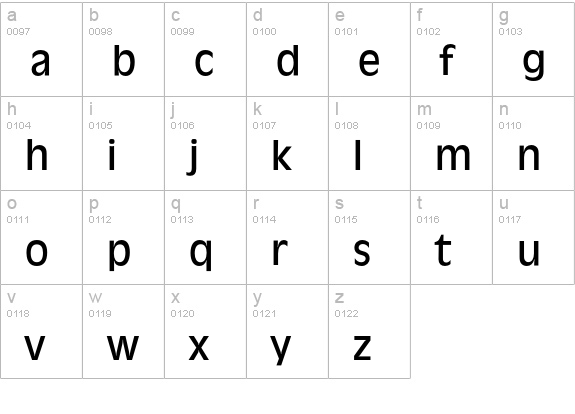
Ravenna-Medium Font Details
Ravenna-Medium is a balanced, medium-weight variant in the Ravenna typeface family \xE2\x80\x94 well suited to sub-headlines, navigation, and balanced editorial work.
Ravenna-Medium font is a stunning display typeface that effortlessly captivates with its elegance and sophistication. With its balanced letterforms, this font strikes the perfect harmony between strength and grace. It features medium weight strokes that exude a sense of stability and professionalism. This font is a true testament to meticulous craftsmanship, with every curve and contour meticulously designed to perfection. Each character is crafted with precision, ensuring legibility at any size, making it an ideal choice for both print and digital media. Ravenna-Medium font's versatility knows no bounds, making it suitable for a wide range of creative projects. Whether it's designing eye-catching logos, crafting stunning headlines, or creating striking brand identities, this font effortlessly elevates any design to new heights. And the best part? Ravenna-Medium font is available for free! You can easily download this incredible typeface at FontsMarket.com. Now, you can add a touch of sophistication and professionalism to your projects without breaking the bank. Don't miss out on the opportunity to enhance your designs with the beauty and versatility of Ravenna-Medium font. Download it today and let your creativity soar to new heights.